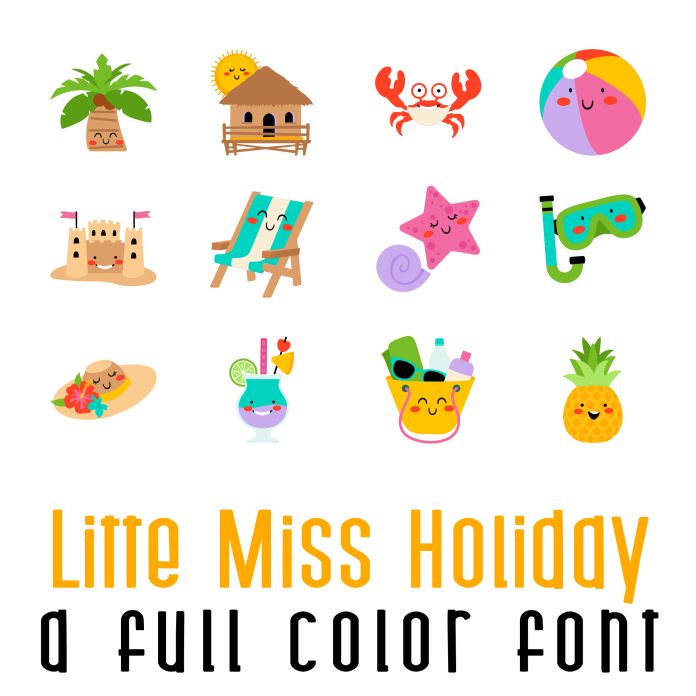
This fun full color font features 26 beachy and holiday themed images, perfect for cards, crafts, gifts, decor, scrapbook pages, planner stickers, and more!